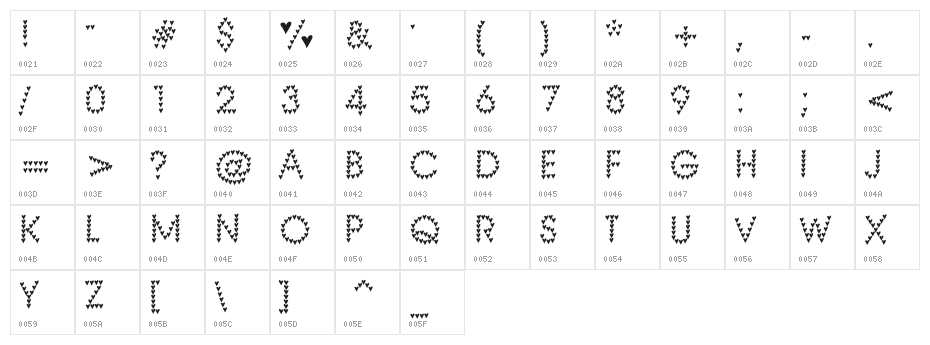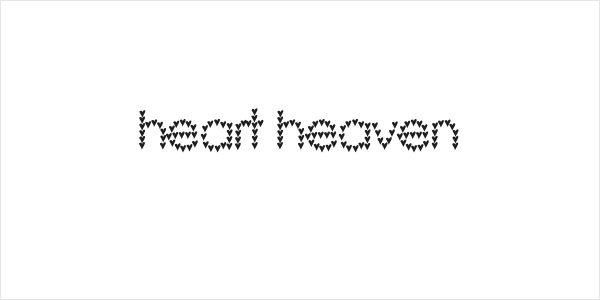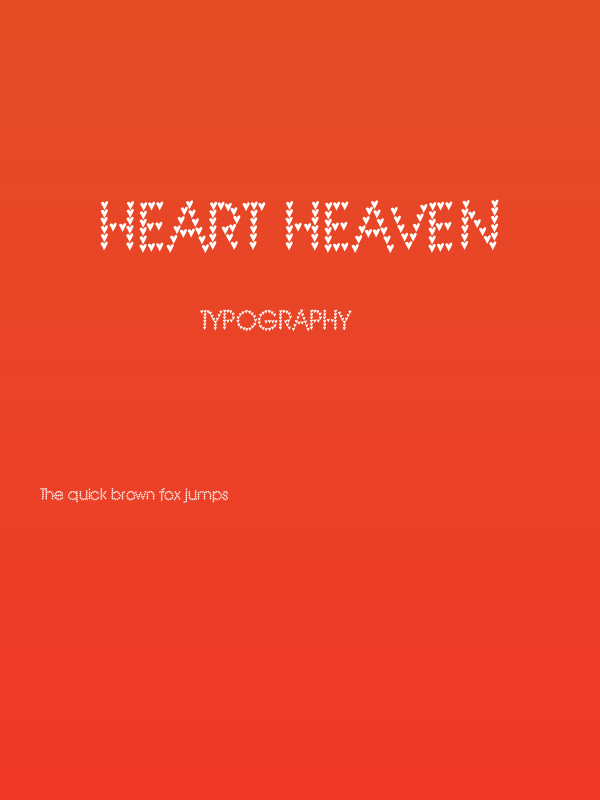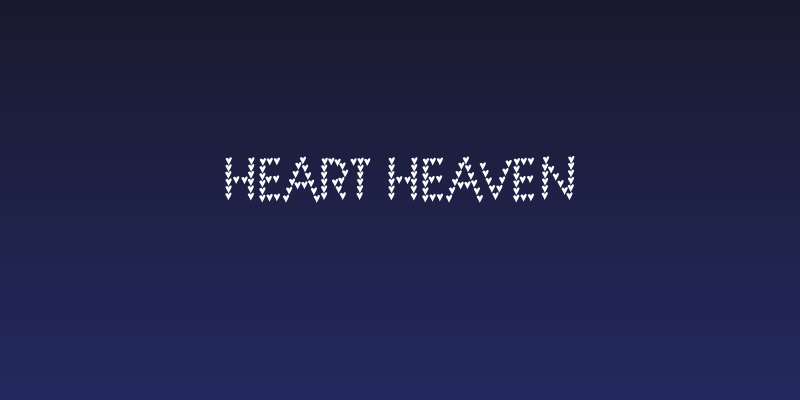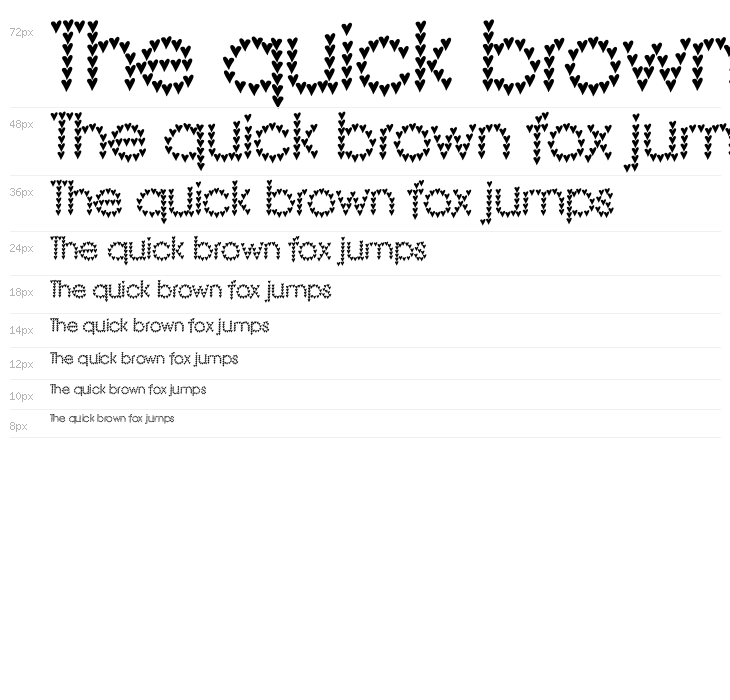
heart heaven Font
heart heaven Description
This decorative font is composed entirely of small heart shapes forming each character, creating a playful and romantic aesthetic. The uppercase and lowercase letters, as well as numbers and special characters, are all crafted with consistent heart motifs, giving the font a cohesive and charming appearance. The design is unique and eye-catching, making it ideal for projects that require a touch of whimsy and affection. The characters are evenly spaced, ensuring readability while maintaining the decorative style. This font is perfect for themed events, love notes, or any project that aims to convey warmth and creativity.
| Proposed Projects | Ideal for wedding invitations, Valentine's Day cards, love-themed posters, and playful branding. |